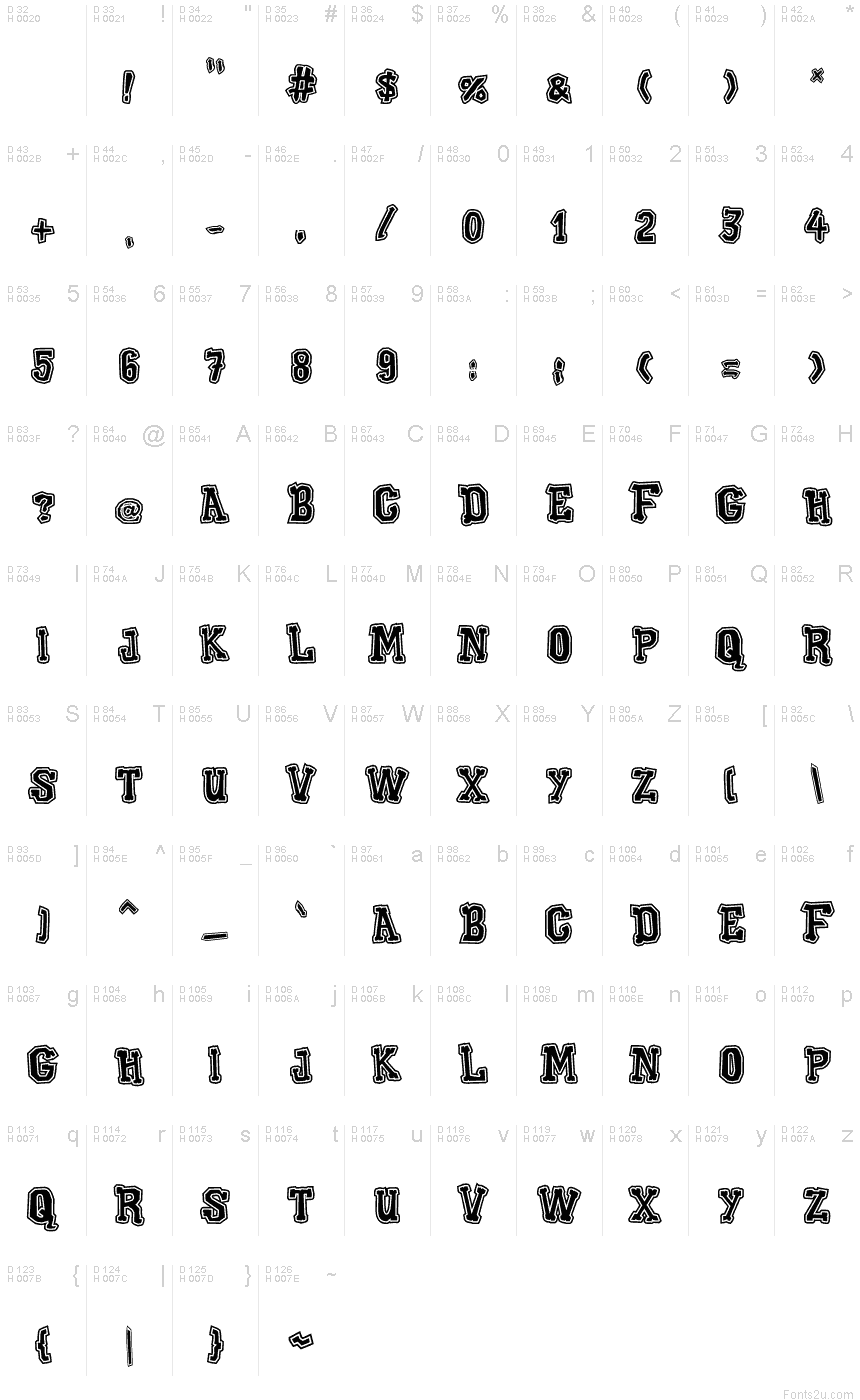
Xilo Galdino Outline
This font was conceived based on the northeast popular culture of Brazil. It can also interact with the Oxent Silibrina font, which was also conceived by this purpose. I hope the artist that choses it not only be able to denote traces of this culture but also feel free to create new themes approaching this style. Like in this exemple named:
Dreaming with (Dom) Quixote and (Ariano) Suassuna, 2007.
Galdino Otten, Campina Grande - Paraiba - Brazil
Dreaming with (Dom) Quixote and (Ariano) Suassuna, 2007.
Galdino Otten, Campina Grande - Paraiba - Brazil